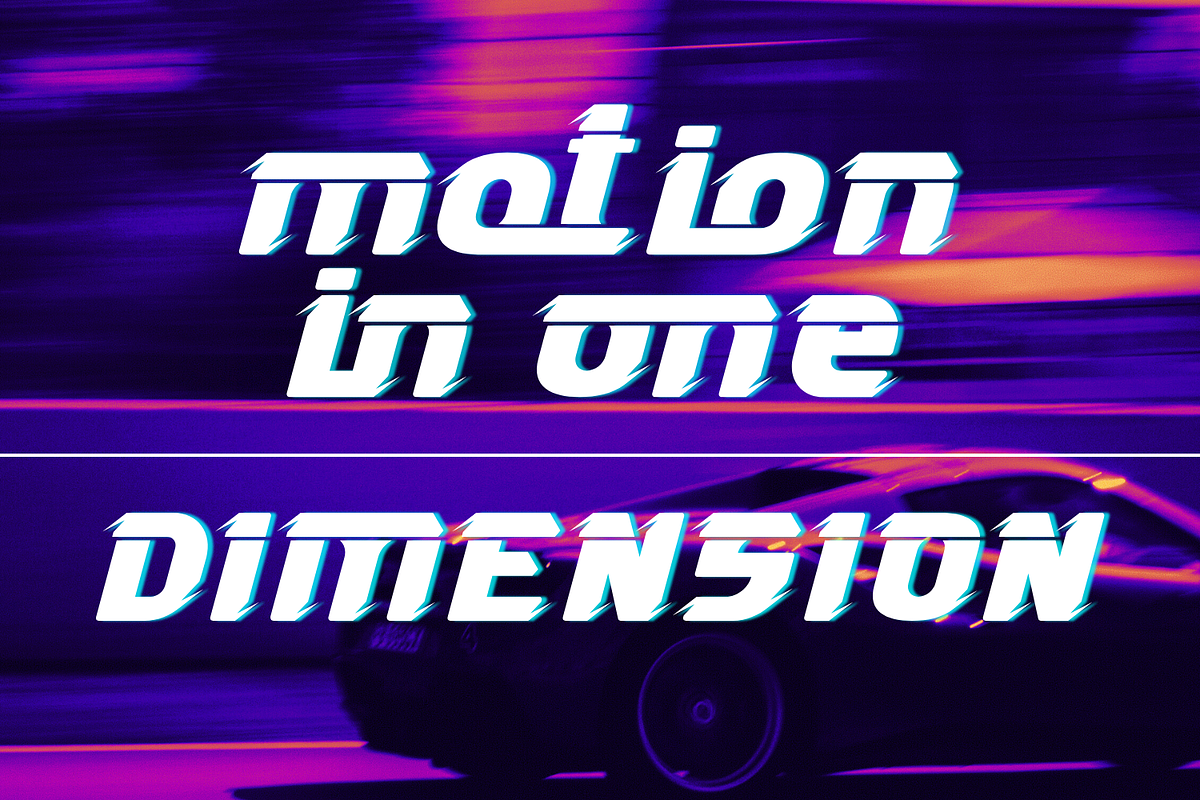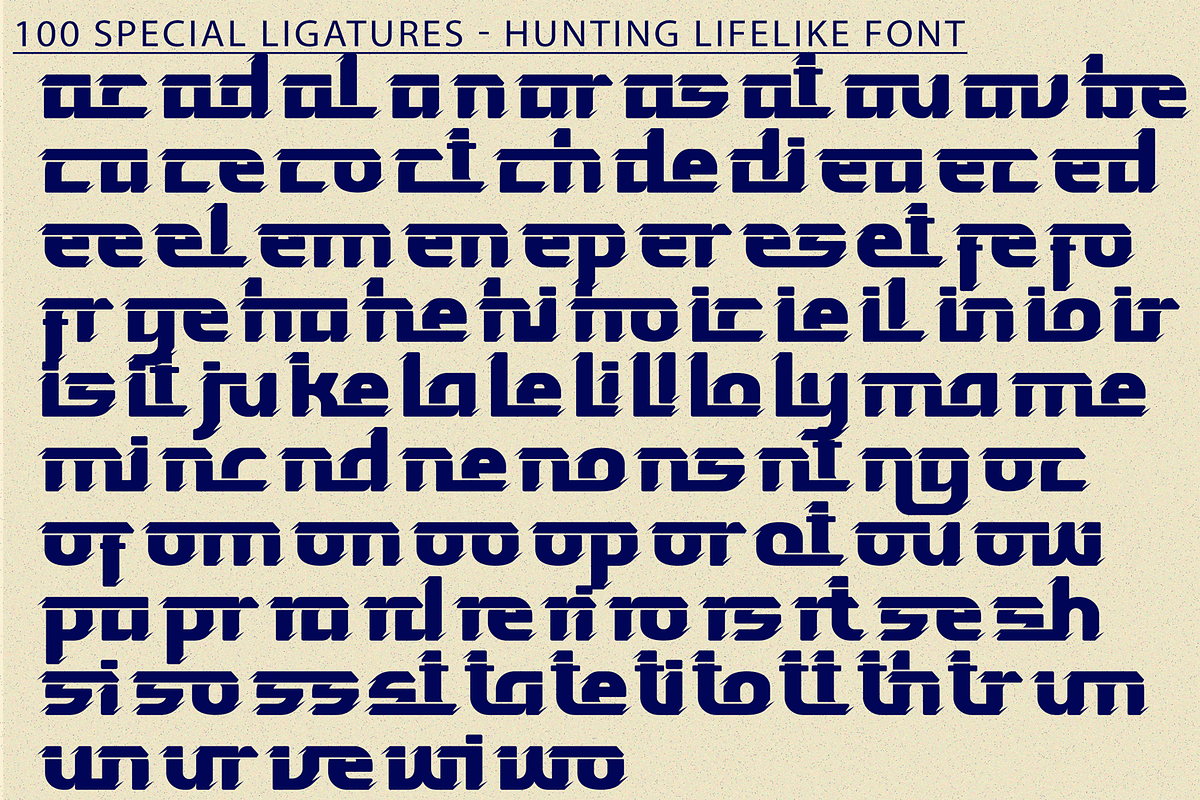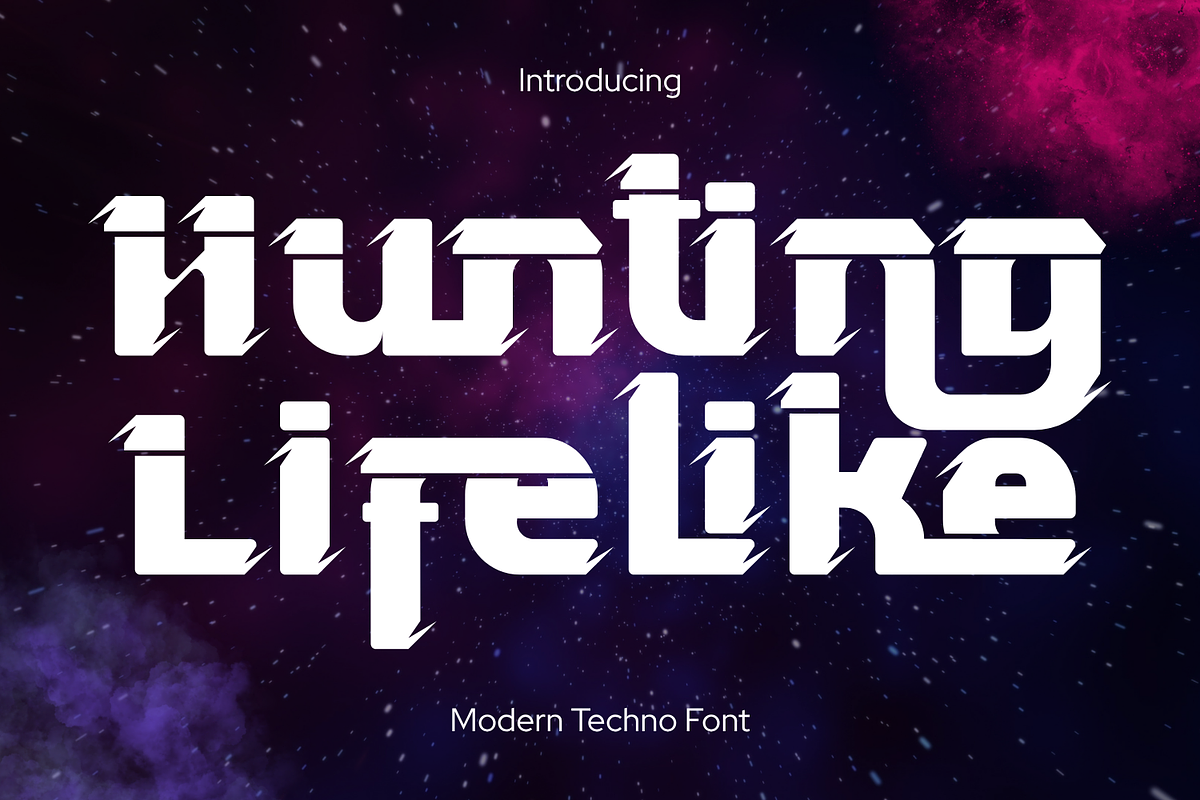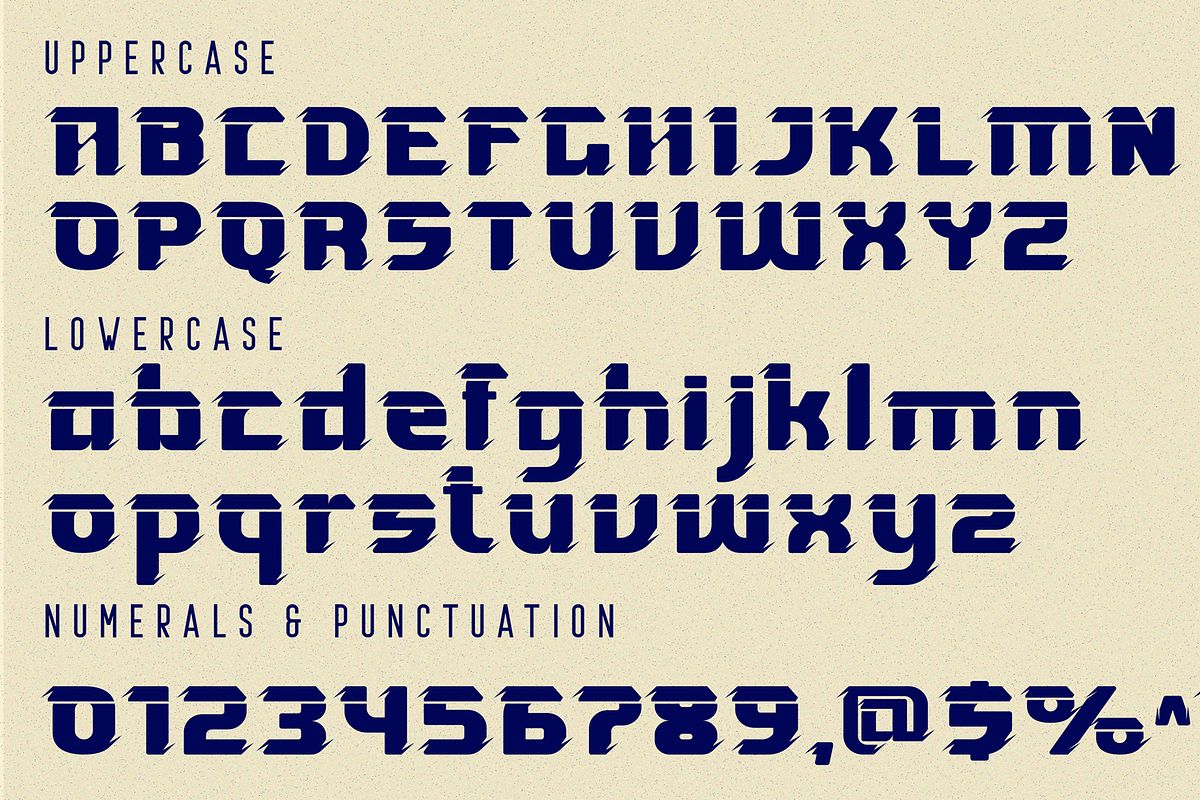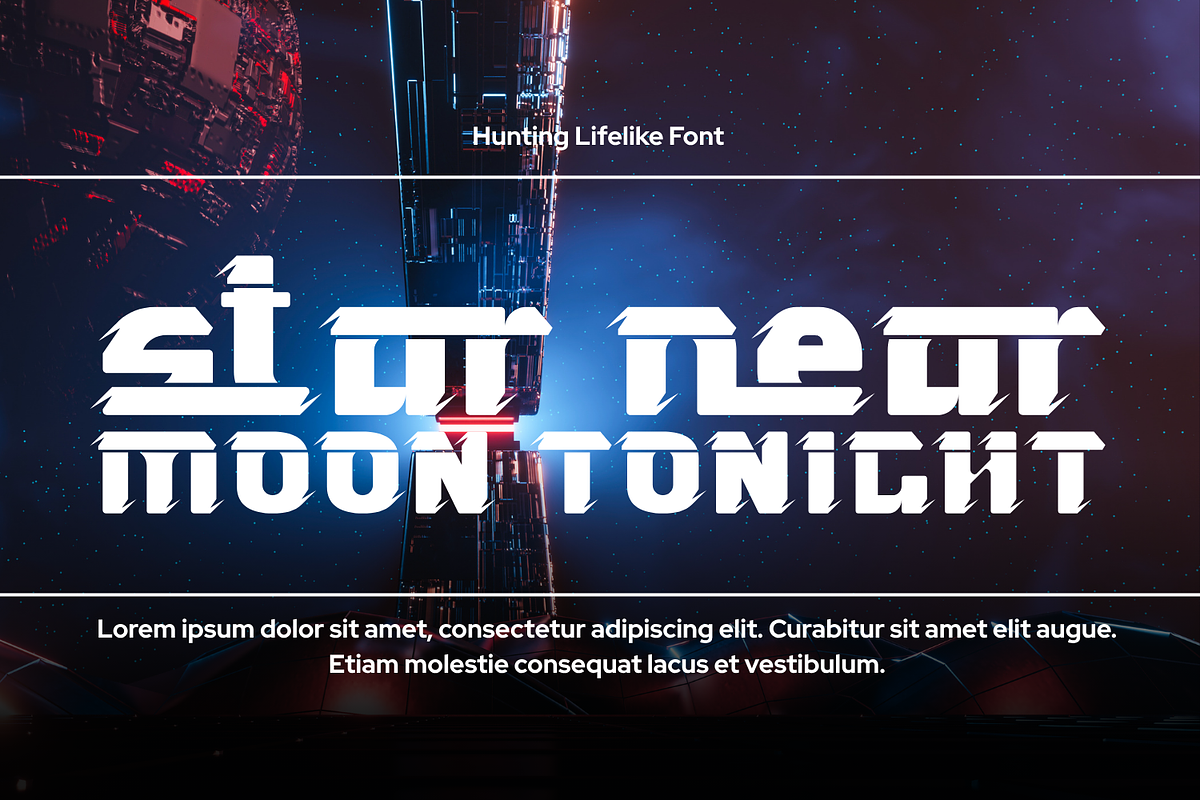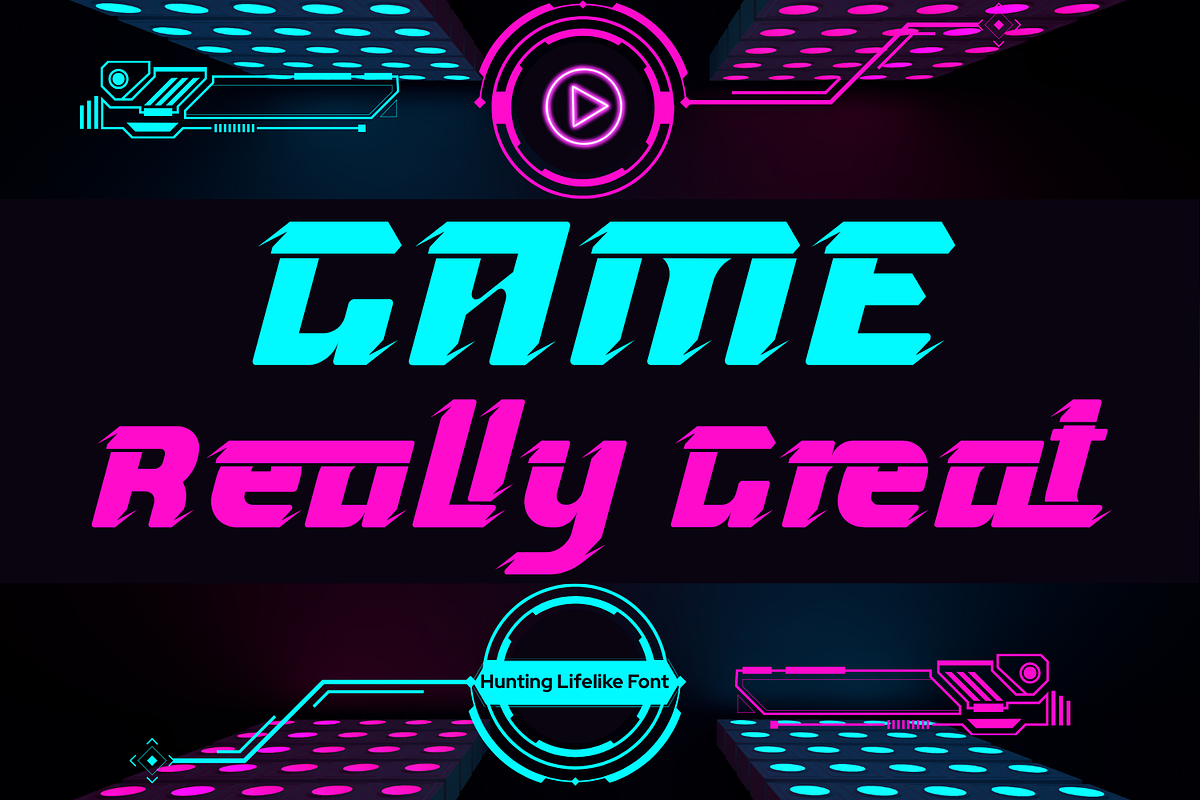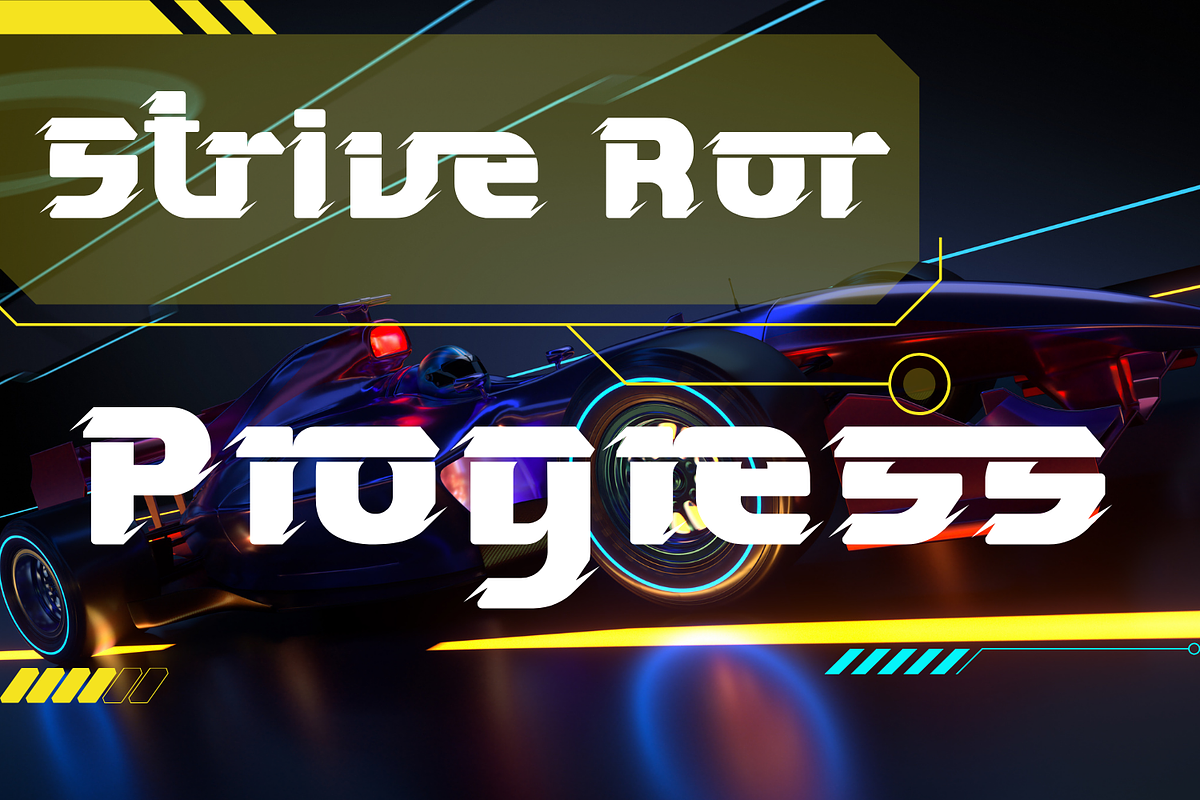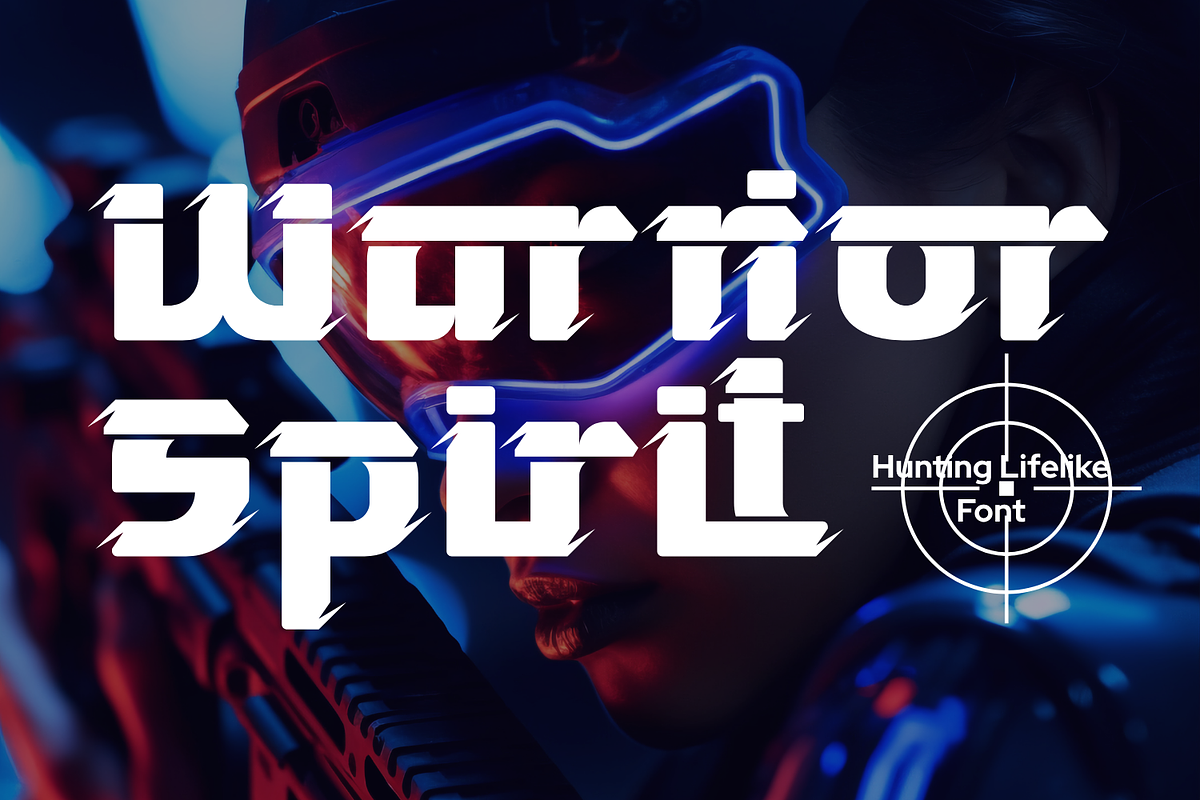
Hunting Lifelike - Futuristic Font
Hunting Lifelike - Futuristic Font is a futuristic display font that embodies speed, power, and cutting-edge design. Its bold geometric forms and sharp angular cuts deliver a strong high-tech aesthetic, perfect for projects that demand a modern and energetic look. Inspired by sci-fi and cyberpunk culture, this font injects a sense of innovation and futuristic identity into your designs. Ideal for sci-fi posters, video game titles, technology branding, album covers, and cinematic visuals, Hunting Lifelike ensures your typography makes a bold statement.
- Uppercase & Lowercase Letters
- ~100 Special Ligatures
- Accented Characters for multilingual support
- Unique futuristic glyph styling
About 100 ligatures combined with Stylistic Alternates Font:
ac ad al an ar as at au av be ca ce ch co ct de di ea ec ed ee el em en ep er es et fe fo fr ge ha he hi ho ie ic il in io ir is it ju ke la le li ll lo ly ma me mi nc nd ne ng no nt ns oc of om on oo op or ot ou ow pa pr ra rd re ri ro rs rt se sh si so ss st ta te th ti to tr tt um un ur ve wi wo